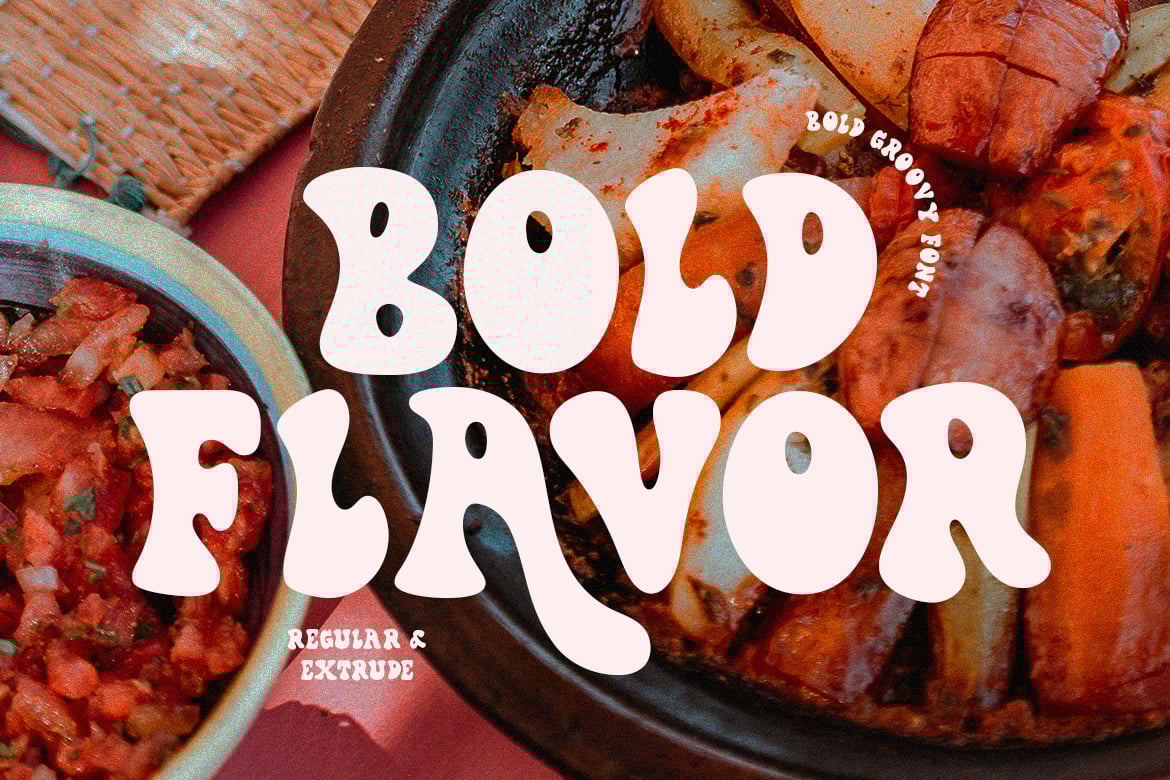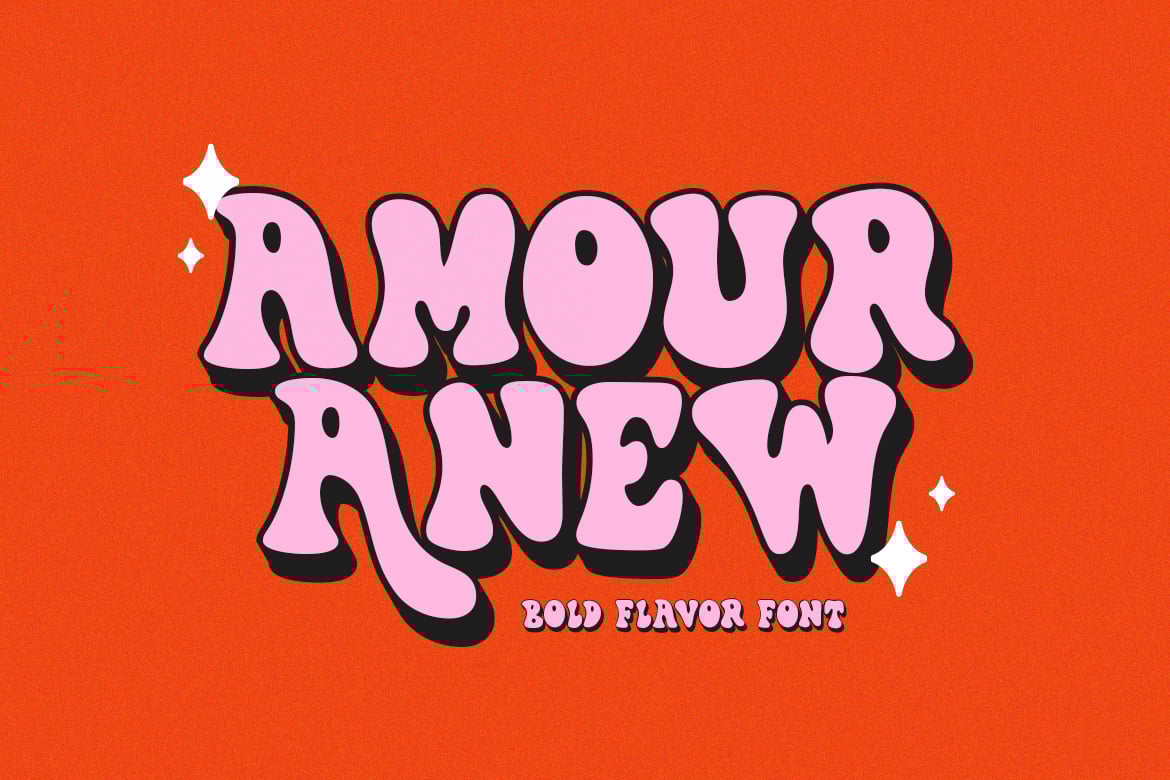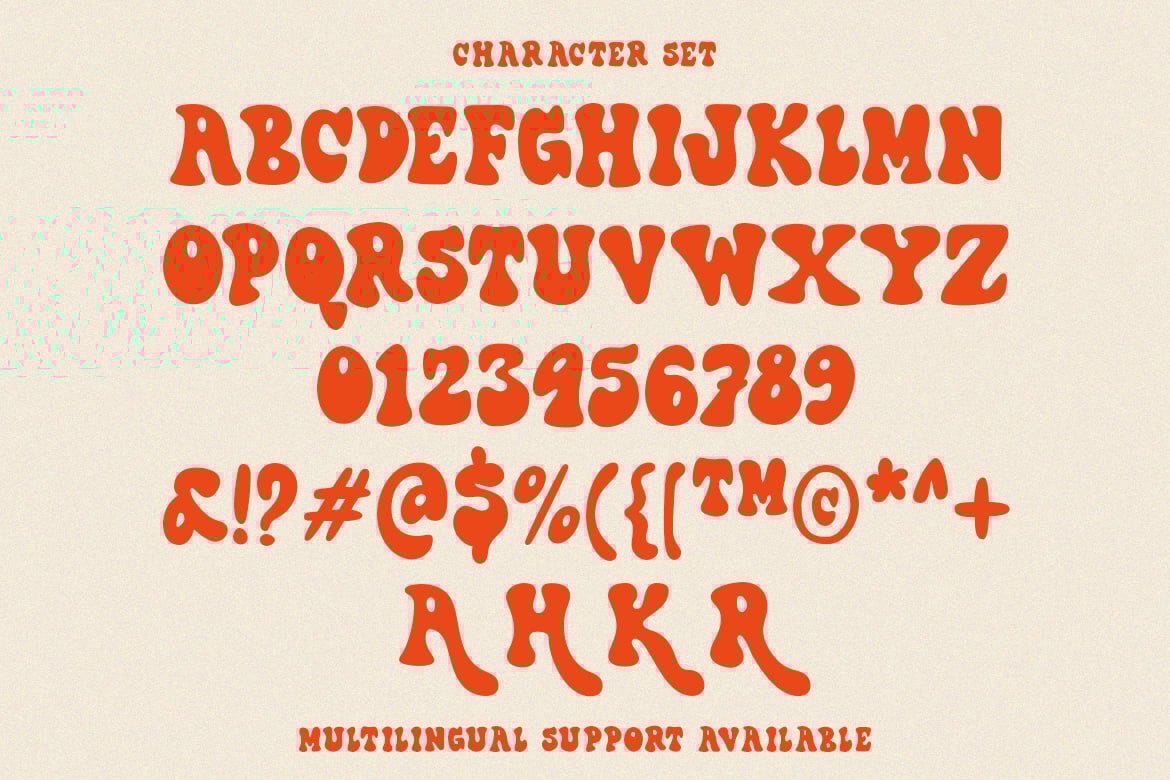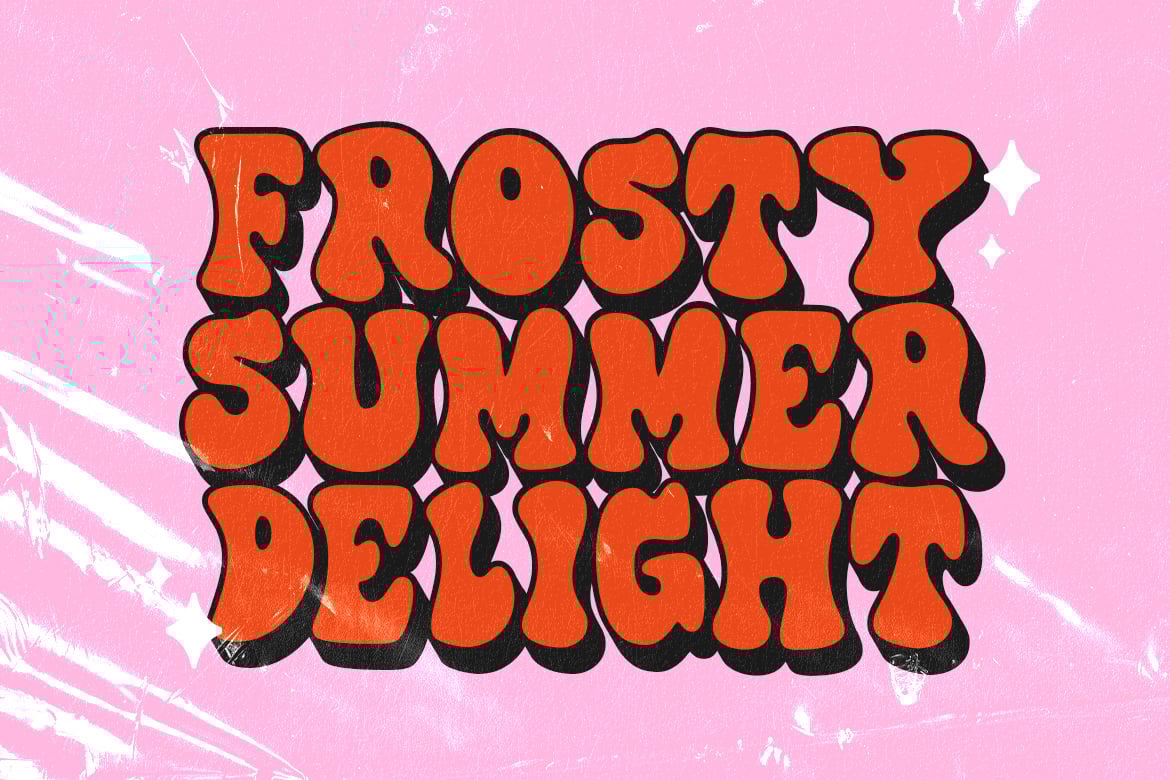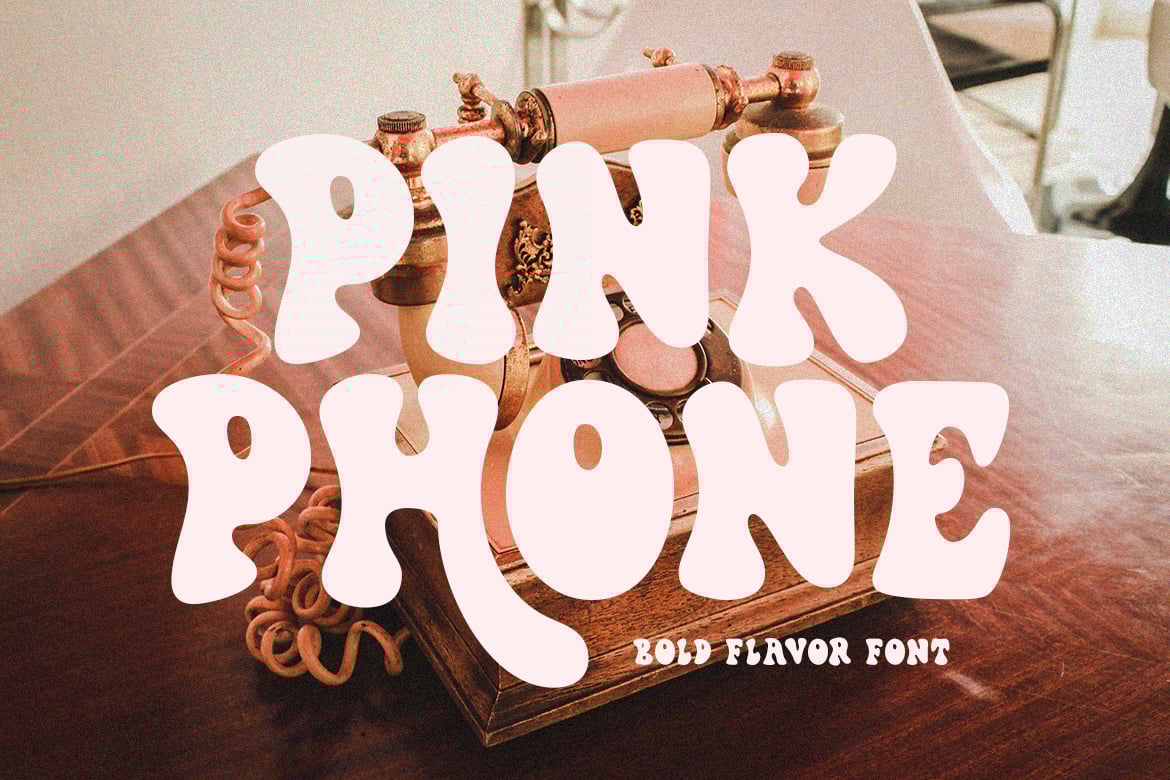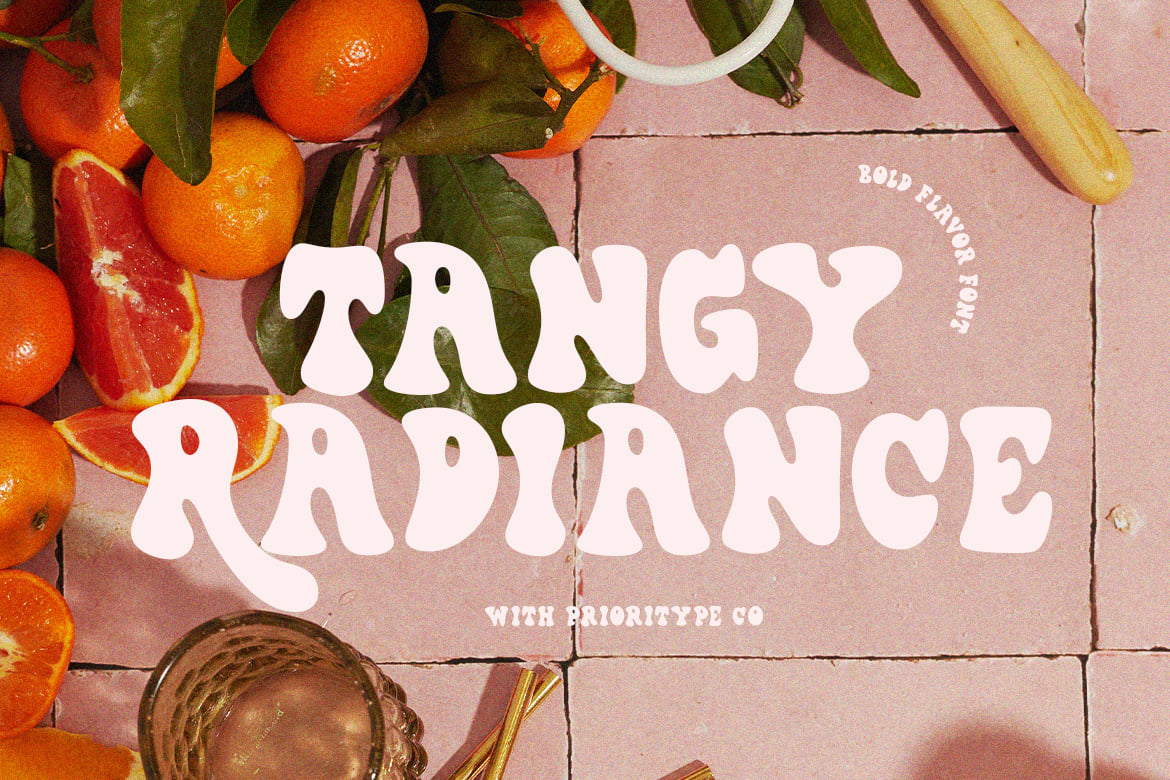
Bold Flavor – Bold Groovy Font
Introducing Bold Flavor. A bold, groovy font that’s both fun and hand-drawn. Perfect for branding, logos, merchandise, and more, its lively strokes bring energy to any design. 2 style available (Regular & Extrude).